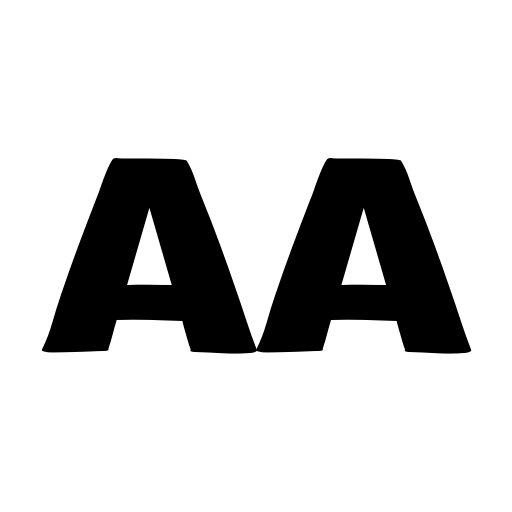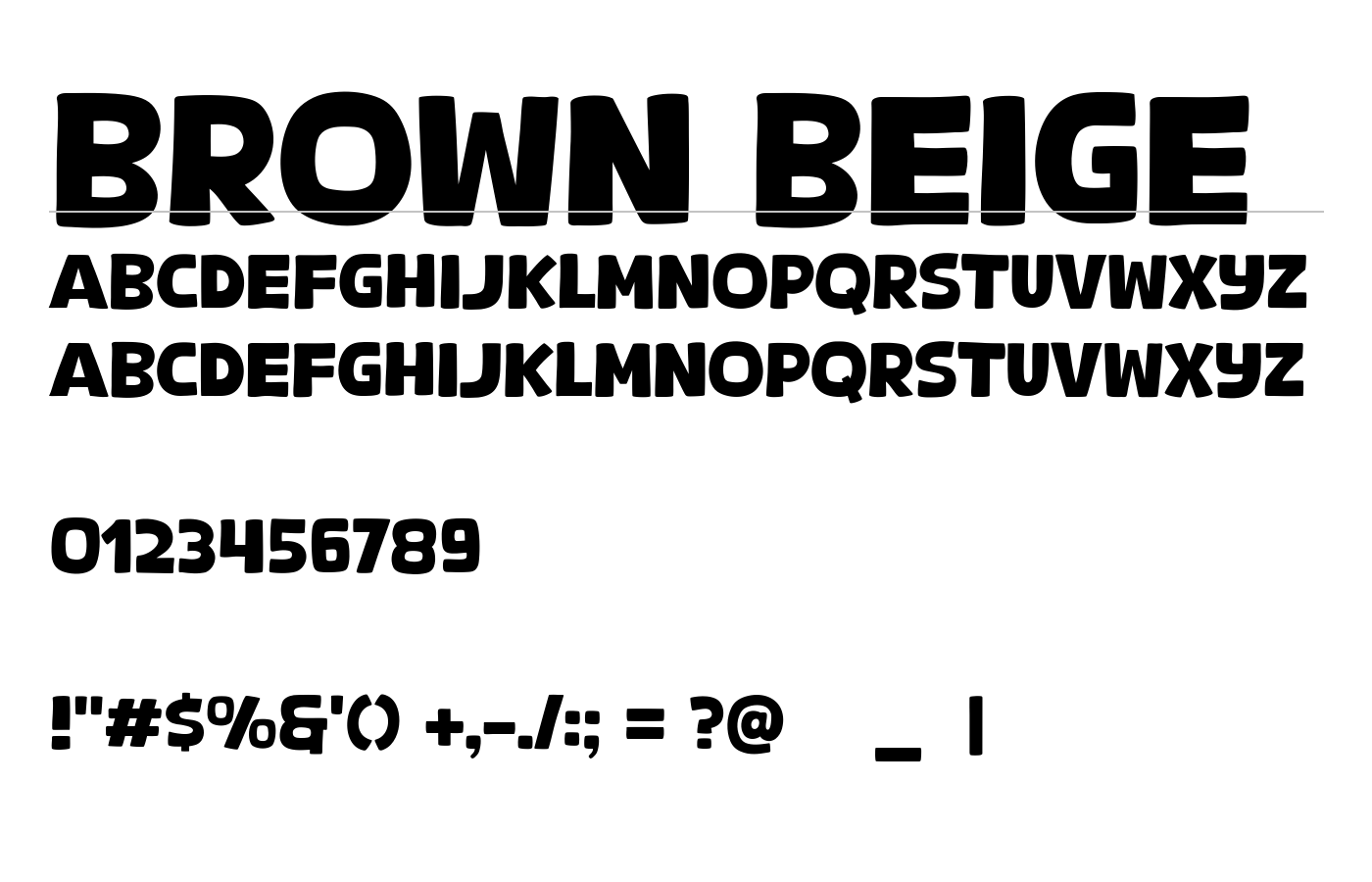
Brown Beige is a bold, playful sans serif font with a friendly, slightly irregular shape that gives it a casual, approachable feel. Its strong weight and wide letterforms make it ideal for eye-catching headlines, logos, and branding that aim to convey warmth and personality. This font works well in creative, informal contexts where a lively yet readable style is desired.
Brown Beige Font
About Brown Beige Font
| Font family | Brown Beige Font |
| Designer | Khurasan & Jalembe |